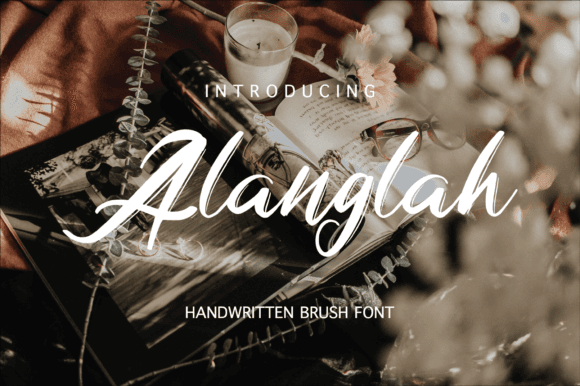
Alanglah Font for Cricut, Silhouette and Printable Designs
This is a decorative script font tailored for precision crafting and creative printing. Alanglah blends handwritten elegance with digital readiness, making it perfect for personalized designs and custom branding elements.
As a font entity, Alanglah delivers graceful swashes and fluid curves, optimized for use in cutting machines and printable formats. It brings a romantic, bespoke quality to every project it touches. With its elegant design, Alanglah enhances the aesthetic of invitations, cards, and personalized gifts, making each piece feel uniquely special. For those seeking versatility, the ankora font for crafting projects offers a perfect complement, allowing for a harmonious blend of styles. Together, these fonts elevate creativity, ensuring every creation stands out with an unmistakable charm. For those who want to take their designs to the next level, the andolas font for silhouette designs adds a striking touch, making visuals even more captivating. Its bold lines and intricate details provide a stunning contrast when paired with Alanglah's delicate features. This combination opens up endless possibilities for creating memorable graphics, ensuring that your projects not only look beautiful but also convey a sense of sophistication and style.
From DIY goods to commercial merchandise, it gives your words a stylish signature finish.
- Vinyl decals, invitations, and cards
- Labels, mugs, tumblers, and tote designs
- Monogrammed gifts and apparel
- Printable art, tags, and signage
- Quotes and themed event graphics
- Handcrafted elegance with smooth flow
- Ideal for weddings, events, and crafts
- Polished results even at small sizes
Q: What kind of font is Alanglah?
A: Alanglah is a decorative script font with fluid, handwritten strokes, ideal for printables and craft-based designs.
Q: Can I use it for wedding invitations?
A: Absolutely. Its flowing elegance makes it ideal for weddings, events, and romantic themes.